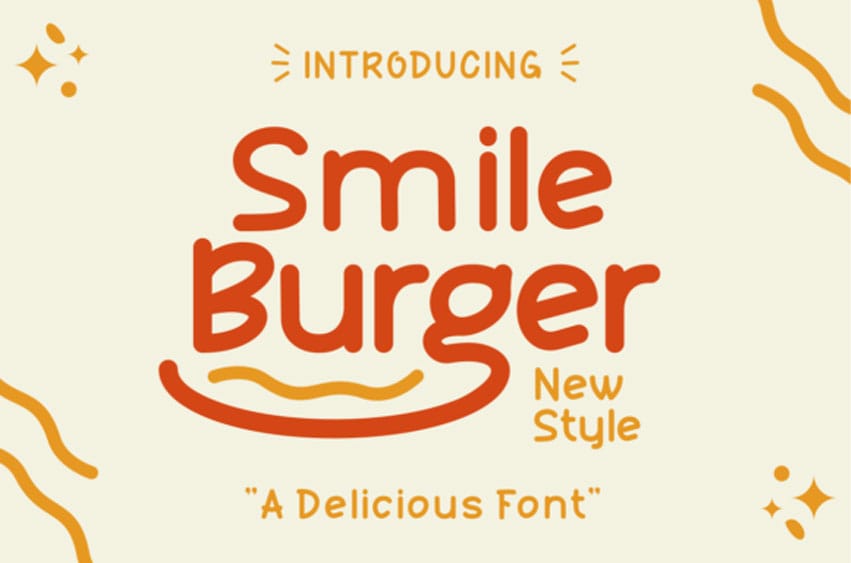
Smile Burger Font is a fresh and neat sans serif font.
No matter the topic, this font will be an incredible asset to your fonts’ library, as it has the potential to elevate any creation.